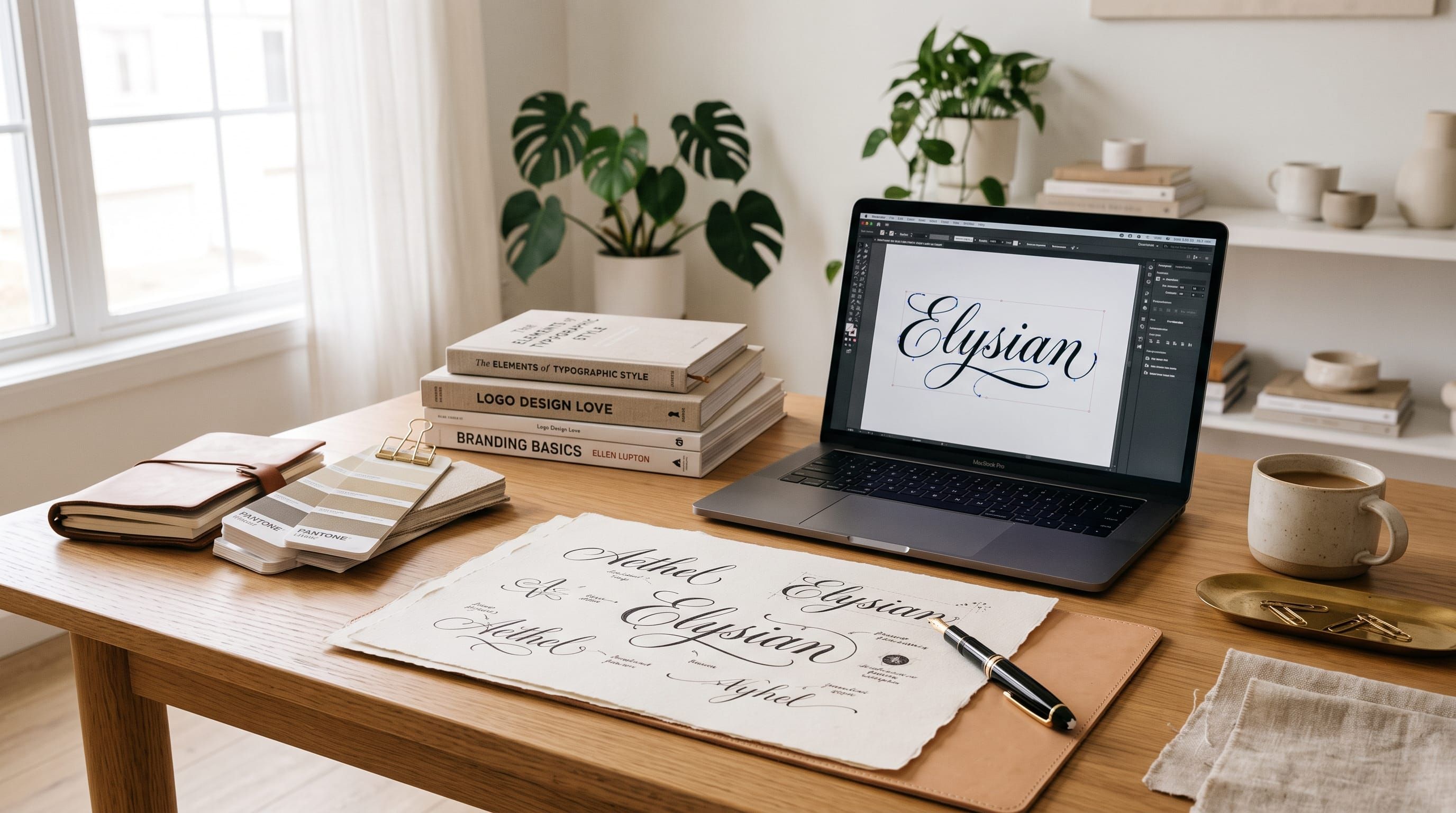
Script Logo Fonts for Better Branding Results
Choosing the right script logo fonts can transform a simple business name into a memorable visual identity. Script typography adds personality, movement, elegance, and a handcrafted feeling that many standard typefaces cannot provide. For creators, designers, boutique owners, and personal brands, the right script font can make a logo feel distinctive from the first glance.
However, not every script typeface works well in branding. Some fonts appear beautiful at a large size but become difficult to read on social media icons, product labels, or small packaging. The best script logo fonts balance artistic character with clarity, scalability, and long-term usability.
A successful logo should remain recognizable across websites, business cards, packaging, social profiles, merchandise, and advertisements. This guide explains how to choose script logo fonts, where to use them, which mistakes to avoid, and which DM Letter Studio fonts can support different brand personalities. It also includes recommended design tools and a practical workflow for creating professional script logos.
Why Script Logo Fonts Work for Branding
Script typography often resembles handwriting, calligraphy, or custom lettering. This human quality helps brands feel more personal and memorable.
Well-selected script logo fonts can help businesses:
• Create a distinctive identity
• Communicate elegance or creativity
• Build emotional connections
• Add a handcrafted personality
• Improve brand recognition
• Differentiate from competitors
• Create premium visual presentation
Script fonts are especially effective when the business depends on personality, style, craftsmanship, or emotional appeal.
Script Logo Fonts for Different Brand Personalities
The right lettering style depends on how the brand should feel.
Elegant Script Logo Fonts
Elegant scripts usually feature:
• Flowing strokes
• Refined curves
• Balanced spacing
• Graceful capital letters
They work well for:
• Beauty businesses
• Wedding brands
• Fashion boutiques
• Luxury products
• Photography studios
Elegant script logo fonts can communicate sophistication without requiring complicated graphic elements.
Casual Handwritten Script Fonts
Casual scripts feel friendly and approachable.
They are suitable for:
• Personal brands
• Creative studios
• Lifestyle businesses
• Handmade products
• Social media creators
These fonts often look more relaxed than formal calligraphy and can make a brand feel authentic.
Bold Signature Logo Fonts
Signature-style fonts create confident and personal identities.
They work well for:
• Coaches
• Photographers
• Designers
• Influencers
• Consultants
Bold signature script logo fonts often look best when the business is closely connected to an individual.
Vintage Script Logo Fonts
Vintage scripts often include:
• Retro curves
• Strong flourishes
• Classic lettering forms
• Decorative swashes
They are ideal for:
• Cafés
• Barbershops
• Apparel brands
• Artisan products
• Heritage-inspired businesses
Vintage typography helps brands create nostalgia and craftsmanship.
Script Logo Fonts for Different Industries
Every industry requires a different balance of style and readability.
Script Logo Fonts for Beauty Brands
Beauty logos often benefit from delicate and elegant lettering.
Useful visual qualities include:
• Thin strokes
• Smooth connections
• Feminine curves
• Refined capitals
The logo should feel premium while remaining readable on bottles, labels, and social media profiles.
Script Logo Fonts for Fashion and Boutique Brands
Fashion brands can use scripts to express exclusivity and individuality.
A strong boutique logo often combines:
• A script wordmark
• Minimal spacing
• A clean supporting typeface
• A restrained color palette
Black, cream, gold, and soft neutral colors work especially well with stylish script logo fonts.
Script Logo Fonts for Wedding Businesses
Wedding designers, planners, florists, photographers, and invitation studios often rely on romantic typography.
The best fonts for this market should feel:
• Elegant
• Timeless
• Personal
• Graceful
Highly decorative scripts can work for names, but supporting information should use a cleaner font.
Script Logo Fonts for Food and Artisan Brands
Handwritten scripts can make food brands feel warm and authentic.
They work well for:
• Bakeries
• Coffee shops
• Handmade snacks
• Organic products
• Local markets
A slightly imperfect handwritten style can communicate craftsmanship more effectively than polished corporate lettering.